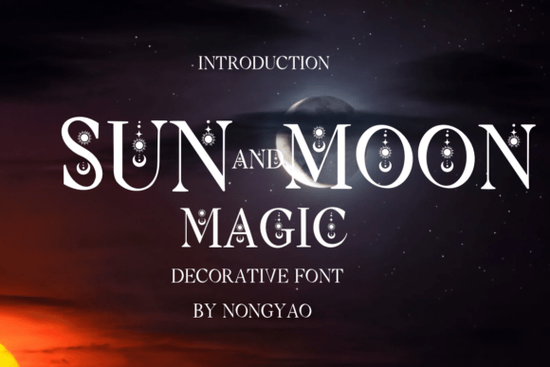
If you’ve been searching for a font that blends elegance with a touch of cosmic charm, the Sun and Moon Magic Font might be exactly what your next project needs. It’s not just another decorative typeface it’s a serif font with subtle celestial motifs tucked into each letter, making it ideal for spiritual branding, tarot decks, candle labels, or even social media posts that want to feel grounded in mysticism without being overwhelming.
What makes this font stand out is how naturally the sun and moon symbols are woven into the design. They don’t overpower the letterforms; instead, they add quiet detail that rewards closer inspection. The proportions stay clean and classical, so readability isn’t sacrificed for style. That balance is rare in decorative fonts many go too far and become unusable at small sizes or in body text. This one holds up surprisingly well.
Who is this font actually good for?
If you run a small business selling handmade goods think candles, oracle cards, incense, or astrology-themed apparel this font gives your packaging and marketing materials an artisanal, intentional look. Print-on-demand sellers will find it especially useful for creating mockups that feel boutique and niche, rather than generic.
Crafters who make digital planners, printable wall art, or greeting cards also get a lot of mileage from it. The font pairs beautifully with minimalist layouts, watercolor backgrounds, or gold foil effects. And if you’re designing for events like solstice parties, moon rituals, or wellness retreats, it adds thematic cohesion without needing extra graphics.
Even if your work isn’t overtly “spiritual,” the font’s balanced duality light and dark, sun and moon can symbolize harmony, transition, or contrast in more abstract ways. Think: personal growth journals, relationship coaching materials, or seasonal product launches.
How does it compare to other decorative fonts on Creative Fabrica?
It’s more refined than something playful like the back-to-school font, which leans into bright, bubbly energy. And while the Cat Club font has its own quirky personality (perfect for pet brands or whimsical illustrations), Sun and Moon Magic sits in a different lane quieter, more elegant, and rooted in symbolism.
Unlike fonts that rely on heavy embellishments or exaggerated swashes, this one keeps things understated. You won’t need to spend time adjusting kerning or simplifying letterforms for legibility. It’s ready to use right out of the box, whether you’re working in Canva, Adobe Illustrator, or Procreate.
Any tips for pairing it with other fonts?
- For contrast: Pair it with a clean sans-serif like Montserrat or Lato. The simplicity lets the decorative details shine without competing.
- For mood: Try combining it with handwritten or brush scripts for a more organic, mystical vibe.
- For hierarchy: Use Sun and Moon Magic for headlines or logos, and switch to a neutral font for body text. It keeps your message readable while letting the design do the talking.
Where should I avoid using this font?
It’s not ideal for long paragraphs or tiny text save it for titles, headers, logos, or accent words. Also, if your brand aesthetic is ultra-modern, corporate, or minimalist to the point of sterility, this font might feel out of place. It works best when there’s room for personality and symbolism.
And while it’s beautiful, don’t force it into every project. Sometimes a plain font with thoughtful layout beats a fancy font with cluttered design. Let the theme guide you if sun/moon, astrology, or duality fits your message, then it’s probably a good match.
- Pair it with a simple secondary font for balance